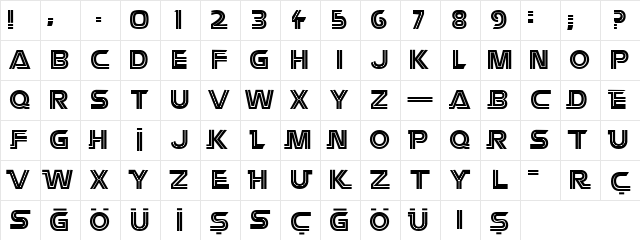
Complete Battlestar TR Regular glyph index. Displaying only characters natively supported by Battlestar TR Regular font.
Battlestar TR is a composed and adaptable typeface that performs quietly and consistently across a wide range of design contexts.